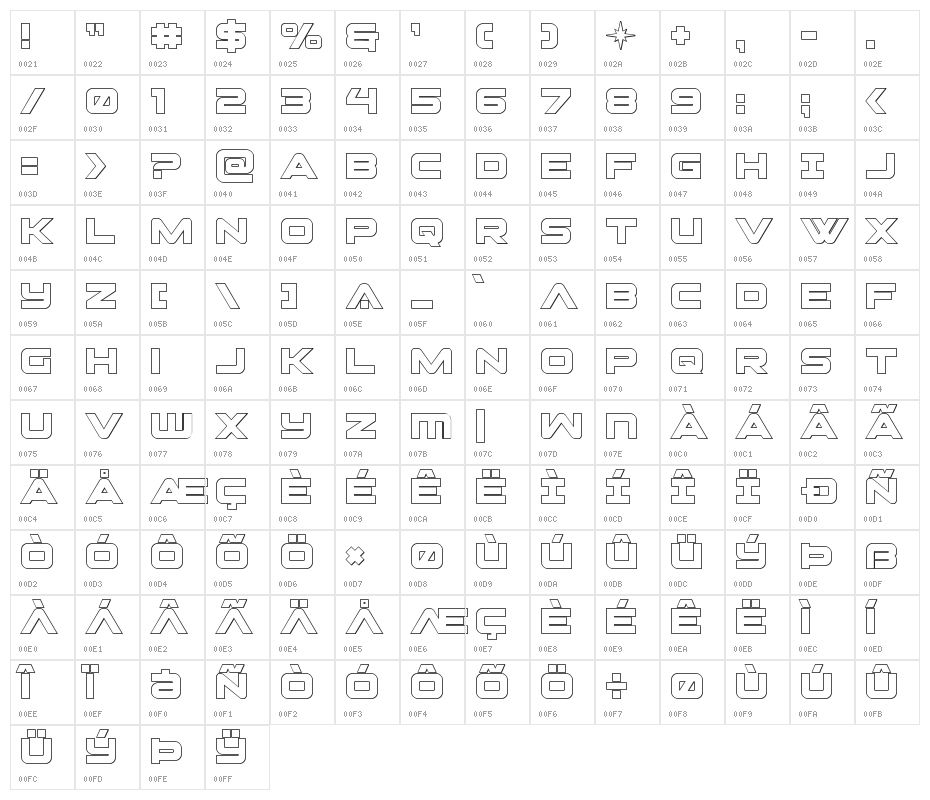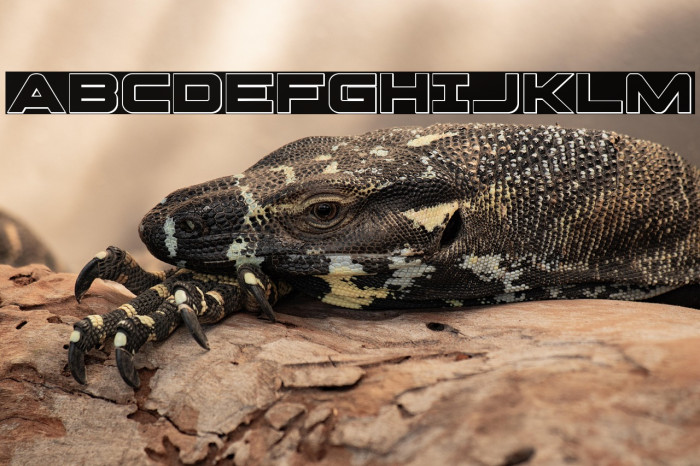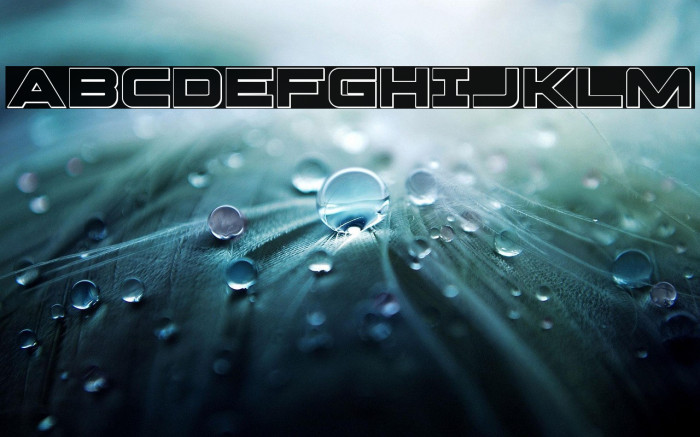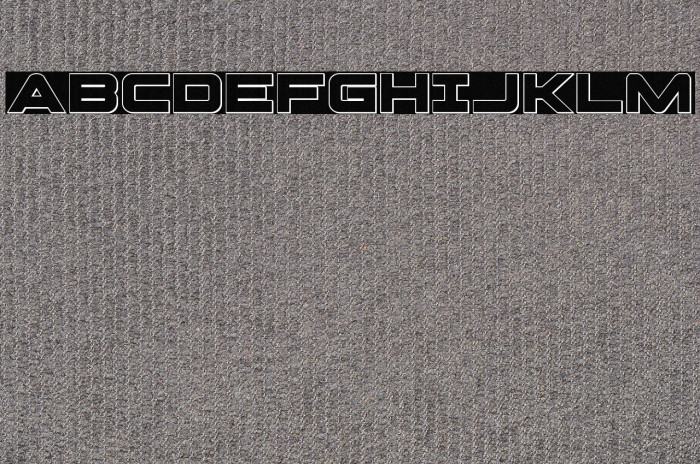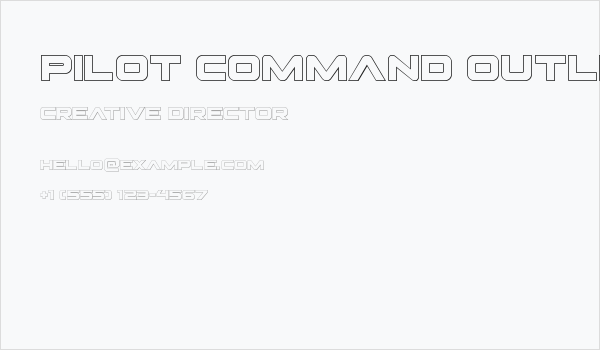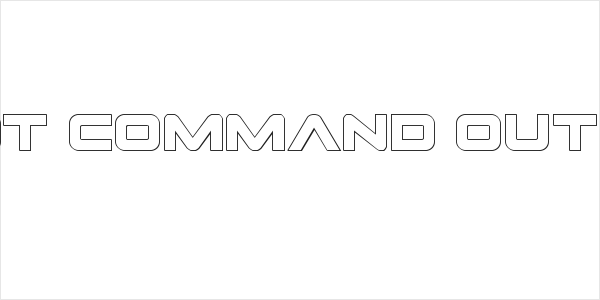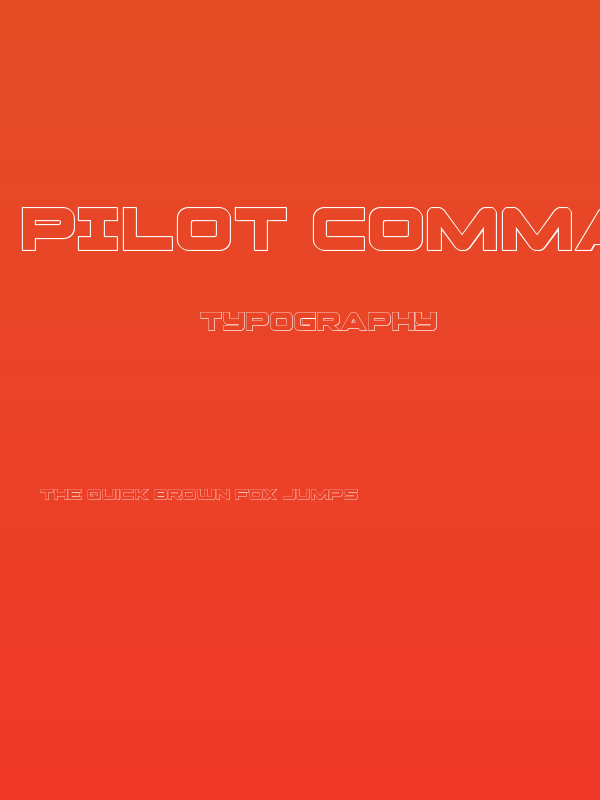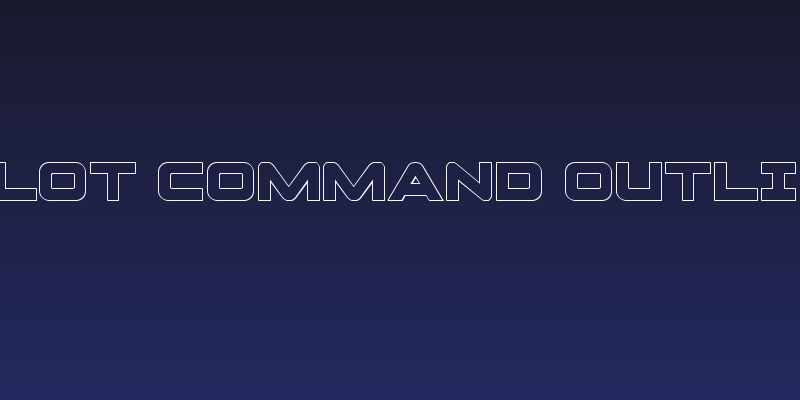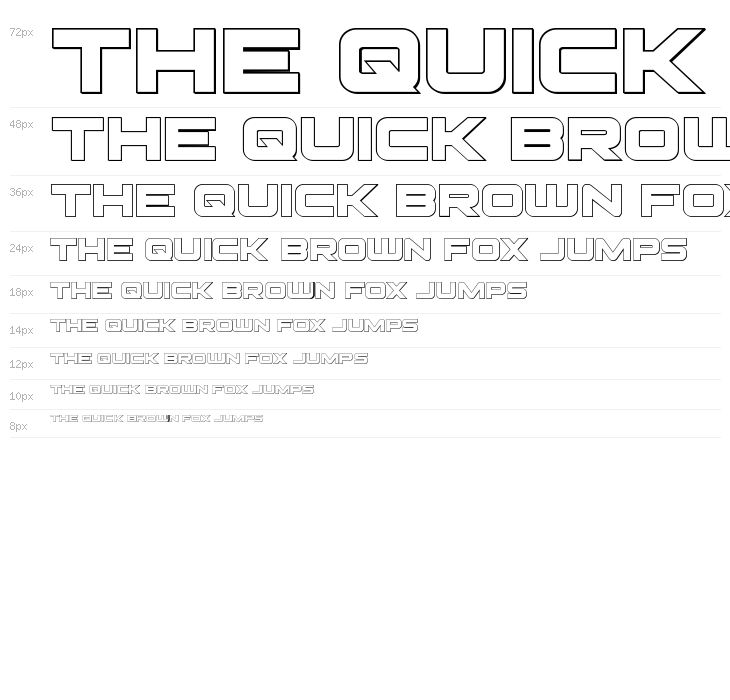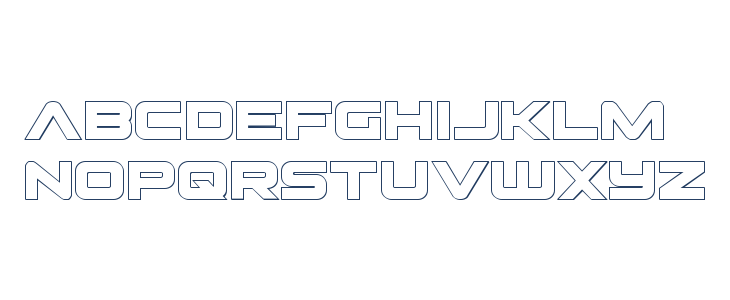
Pilot Command Outline Font
Pilot Command Outline Description
This font features a bold, geometric outline style that gives it a futuristic and technical appearance. The characters are constructed with sharp angles and straight lines, creating a sense of precision and modernity. The uppercase and lowercase letters maintain a consistent height, contributing to a uniform and structured look. The numerals and special characters follow the same design principles, ensuring a cohesive visual identity across all glyphs. This font's outline design allows for creative layering and color usage, making it versatile for various design applications.
| Proposed Projects | Ideal for technology branding, sci-fi themed projects, video game titles, and modern posters. |